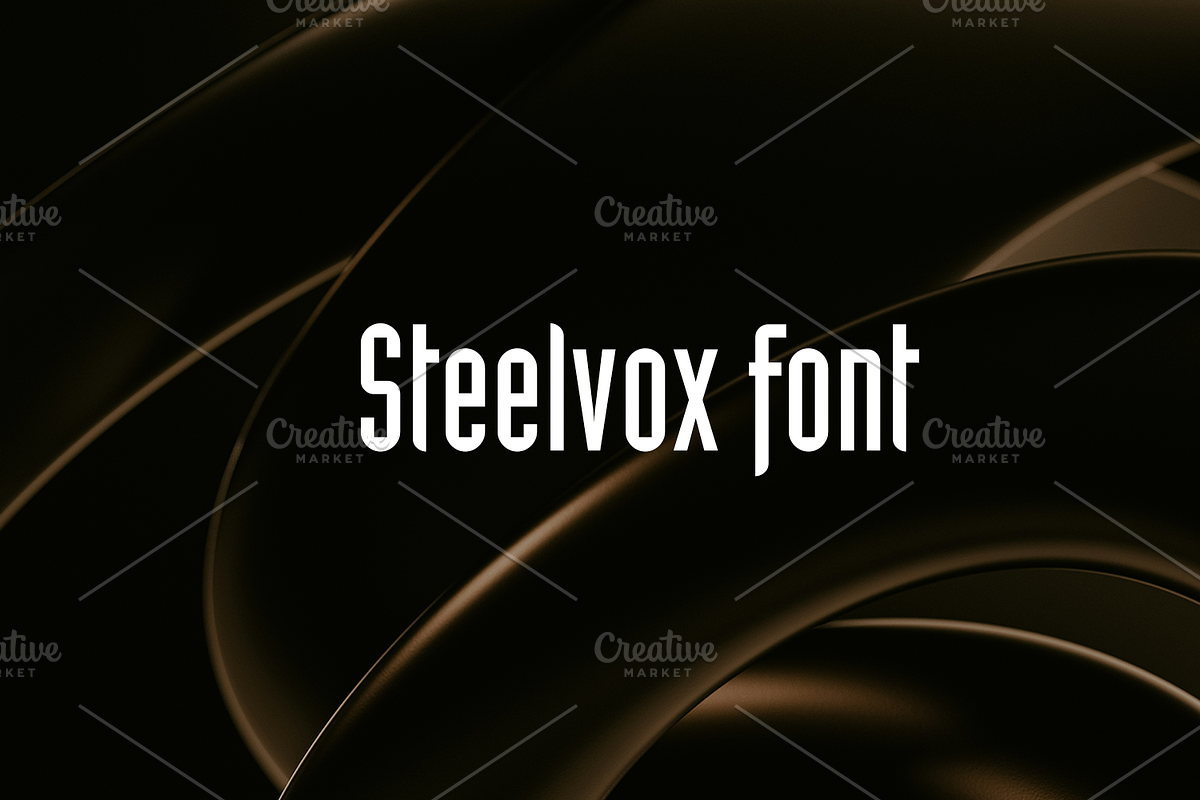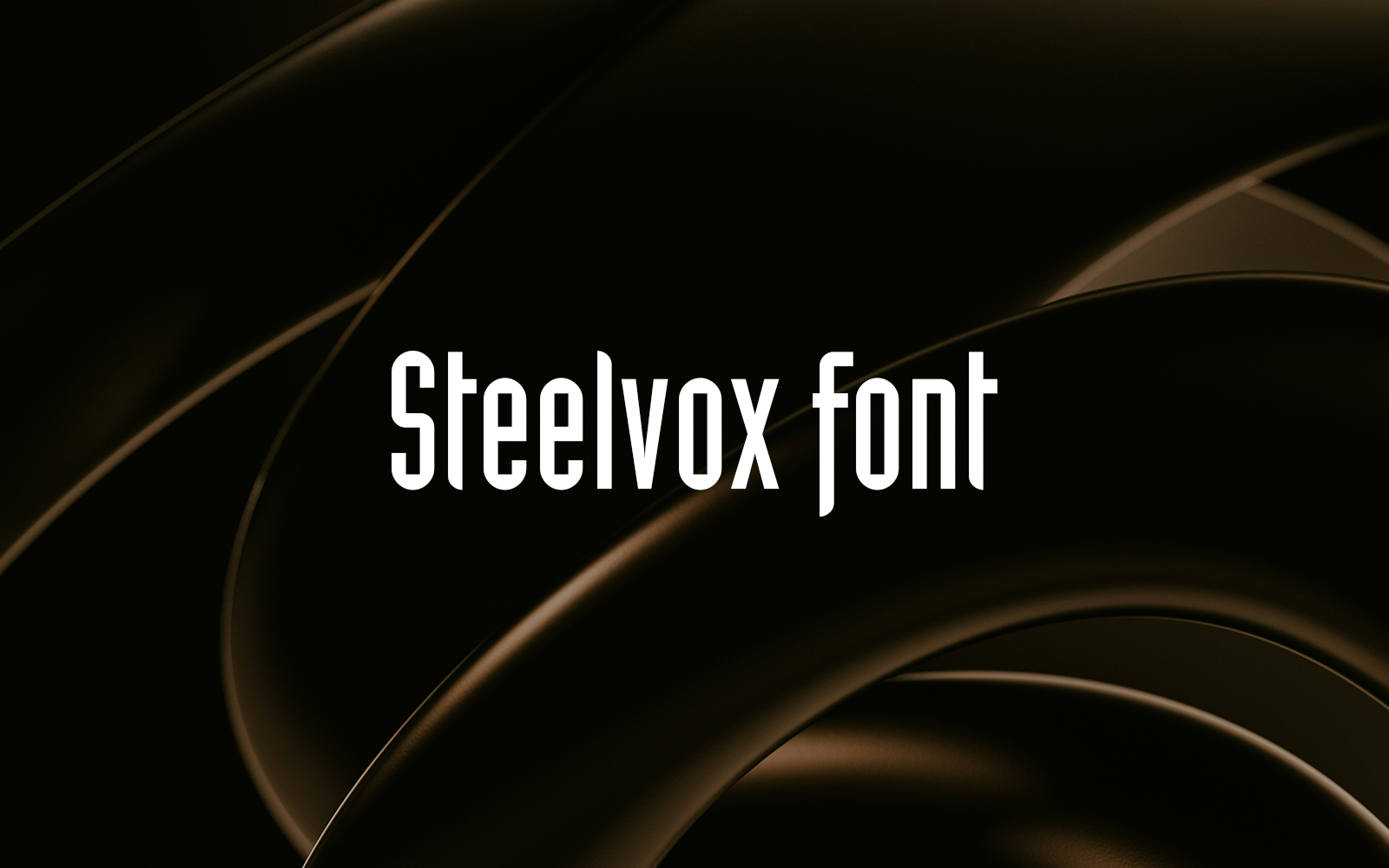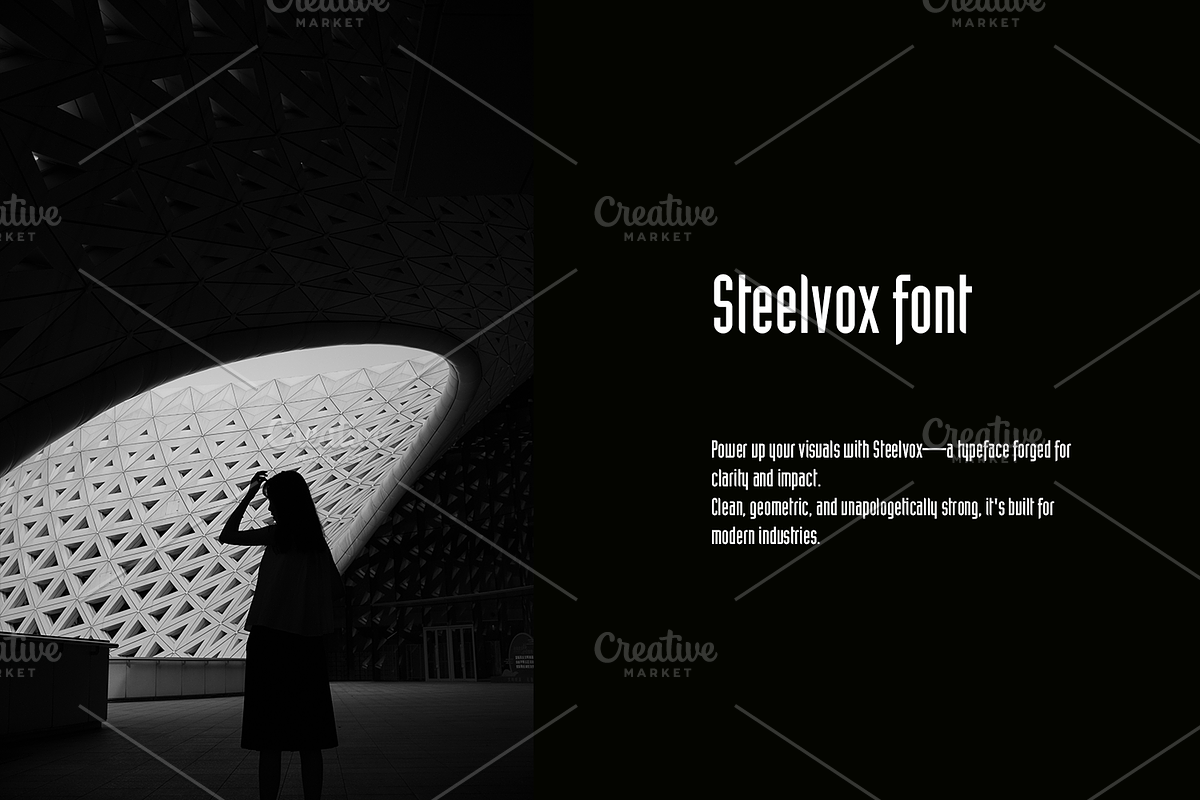
Steelvox font-Roman-0125-25
Power up your visuals with Steelvox—a typeface forged for clarity and impact. Clean, geometric, and unapologetically strong, it's built for modern industries. Perfect for bold branding, architectural layouts, or precision-driven design. Every letter stands firm like steel beams. Steelvox: Where function meets bold form.